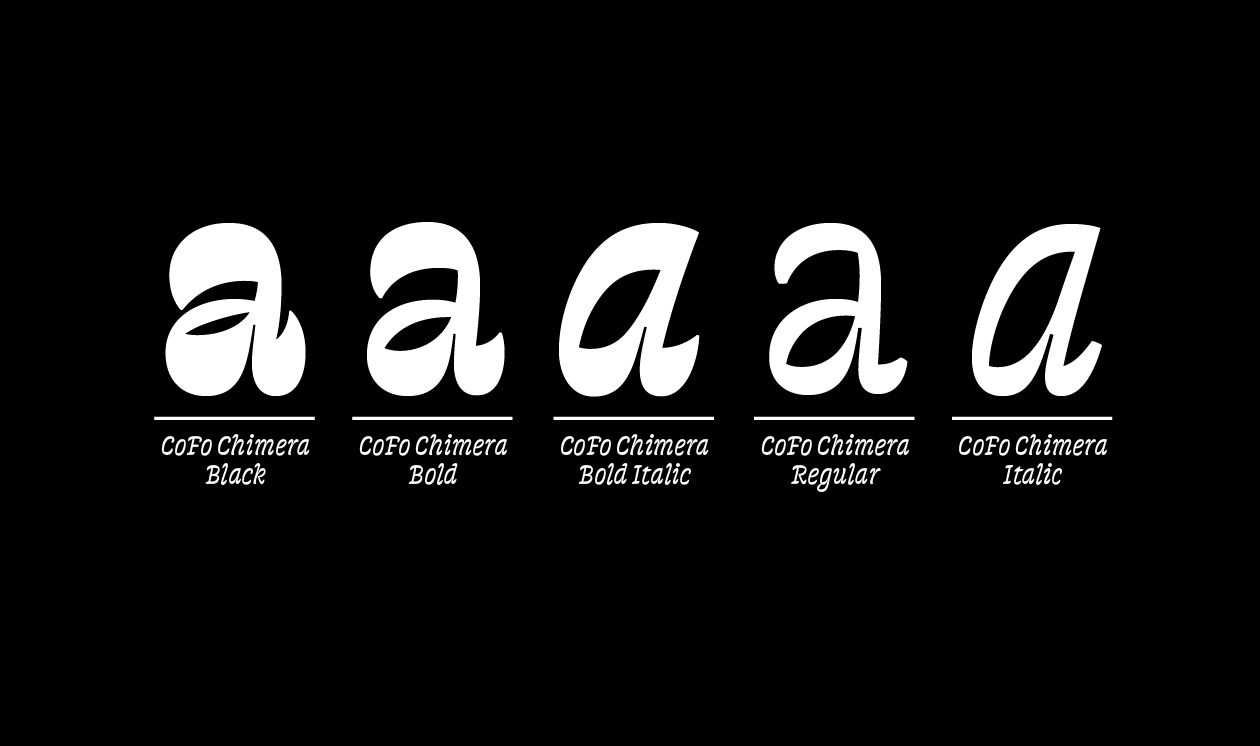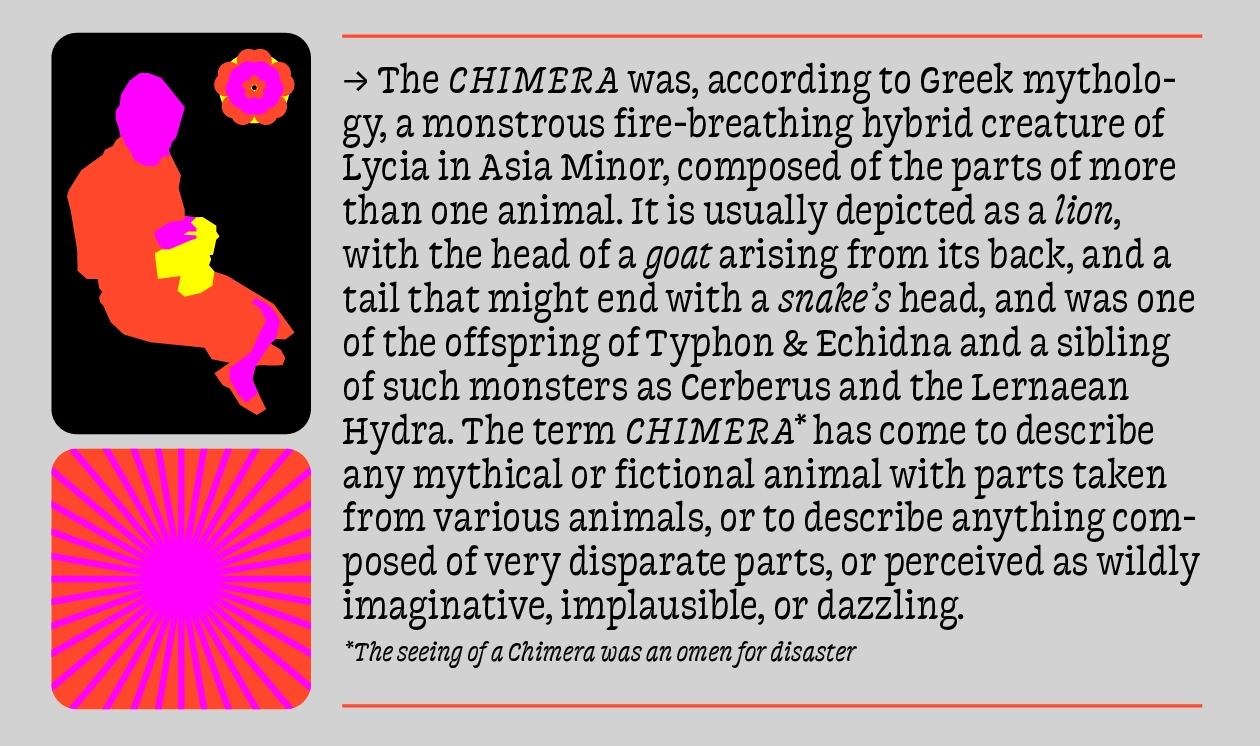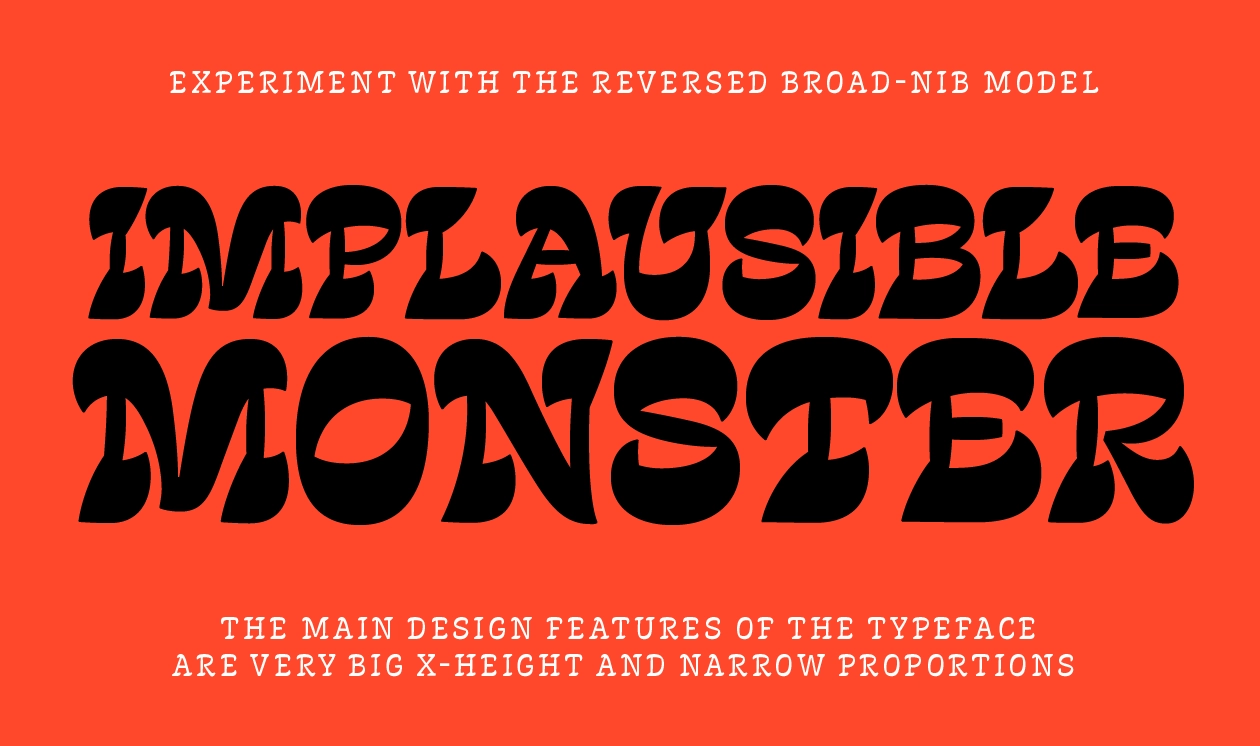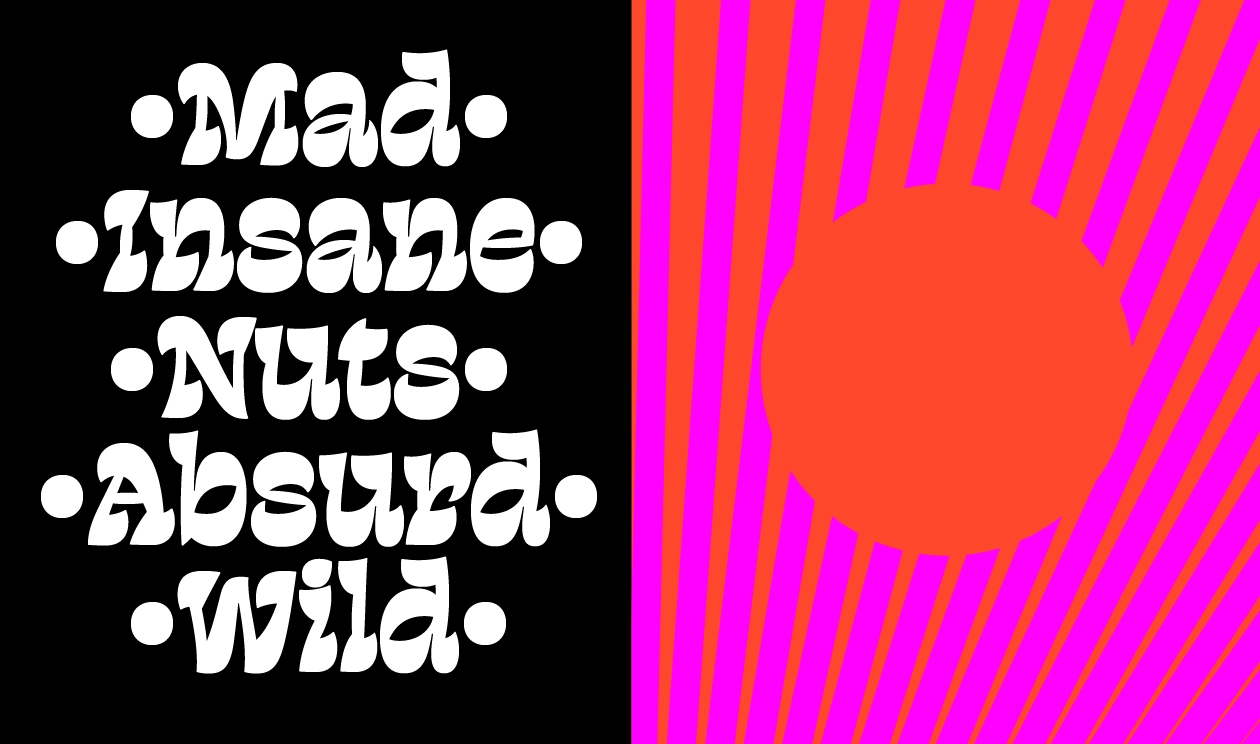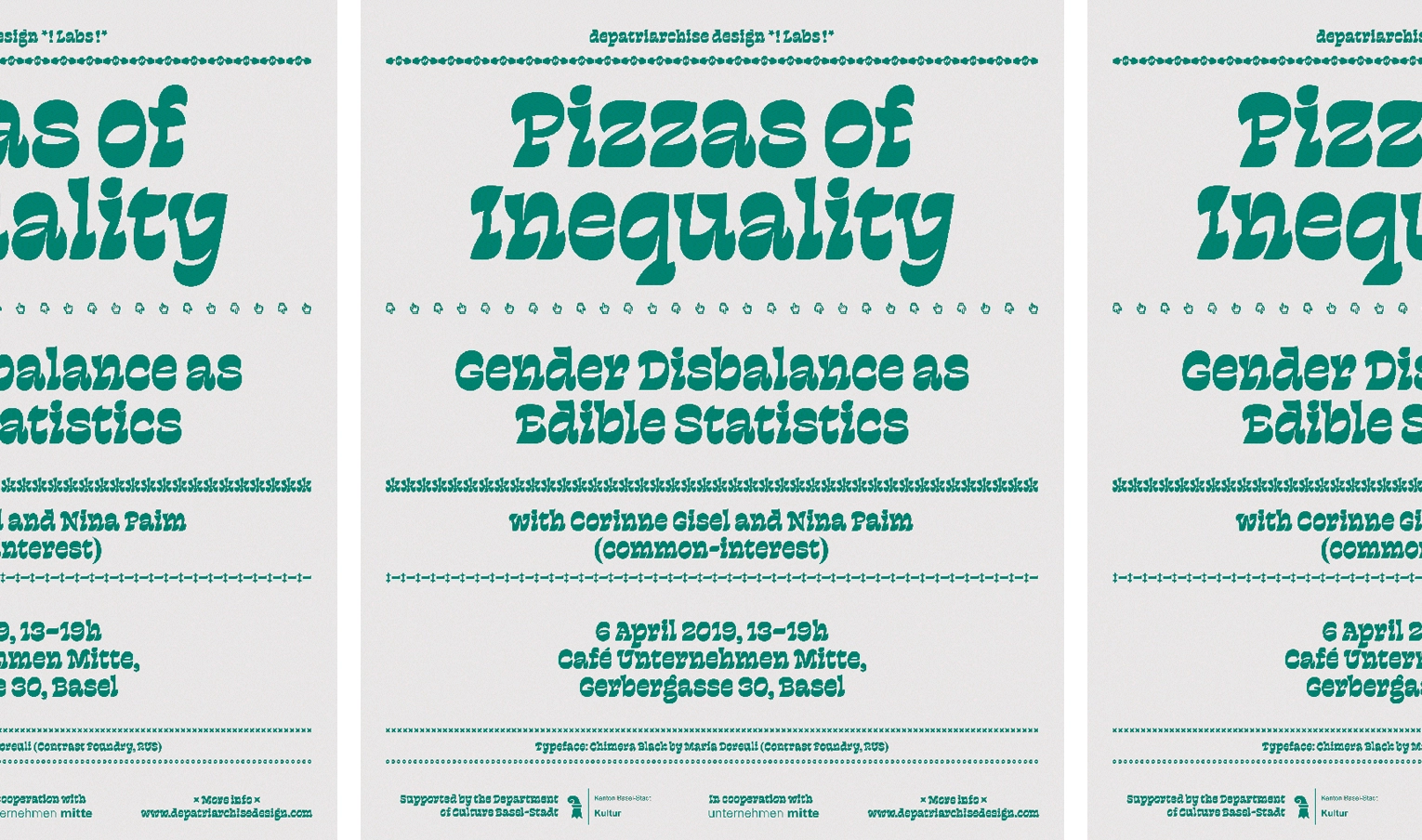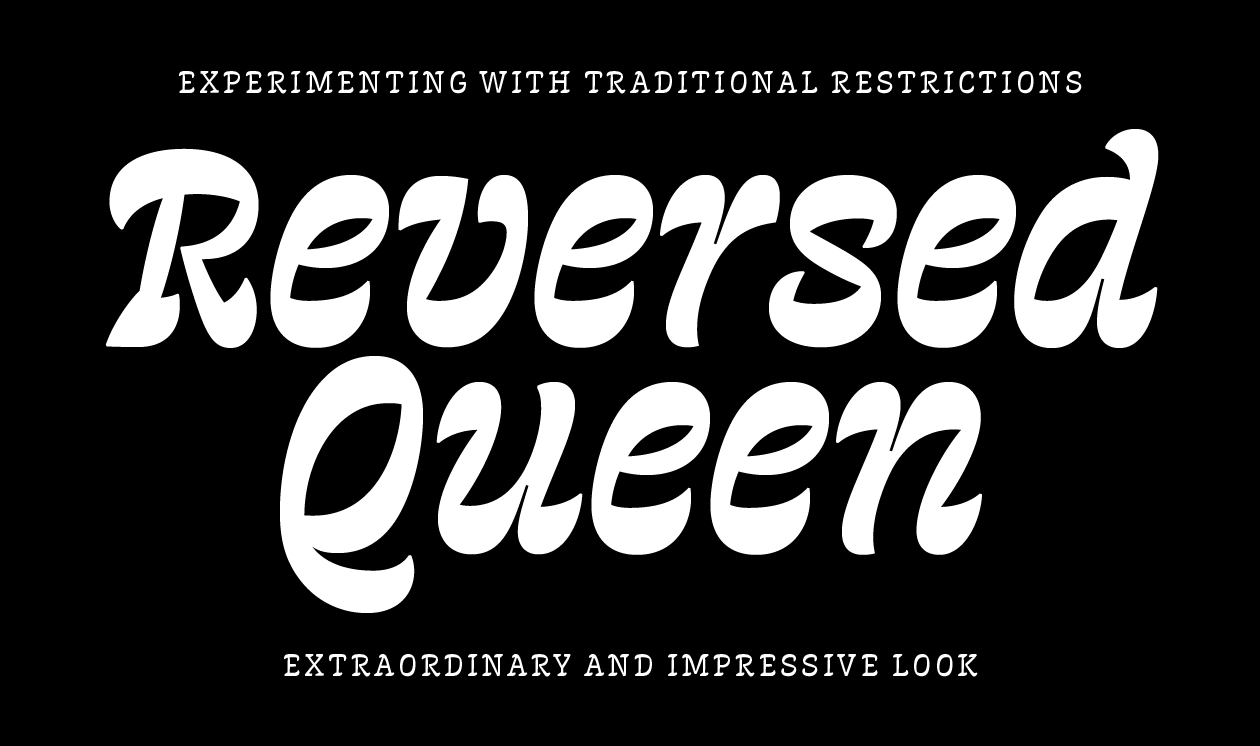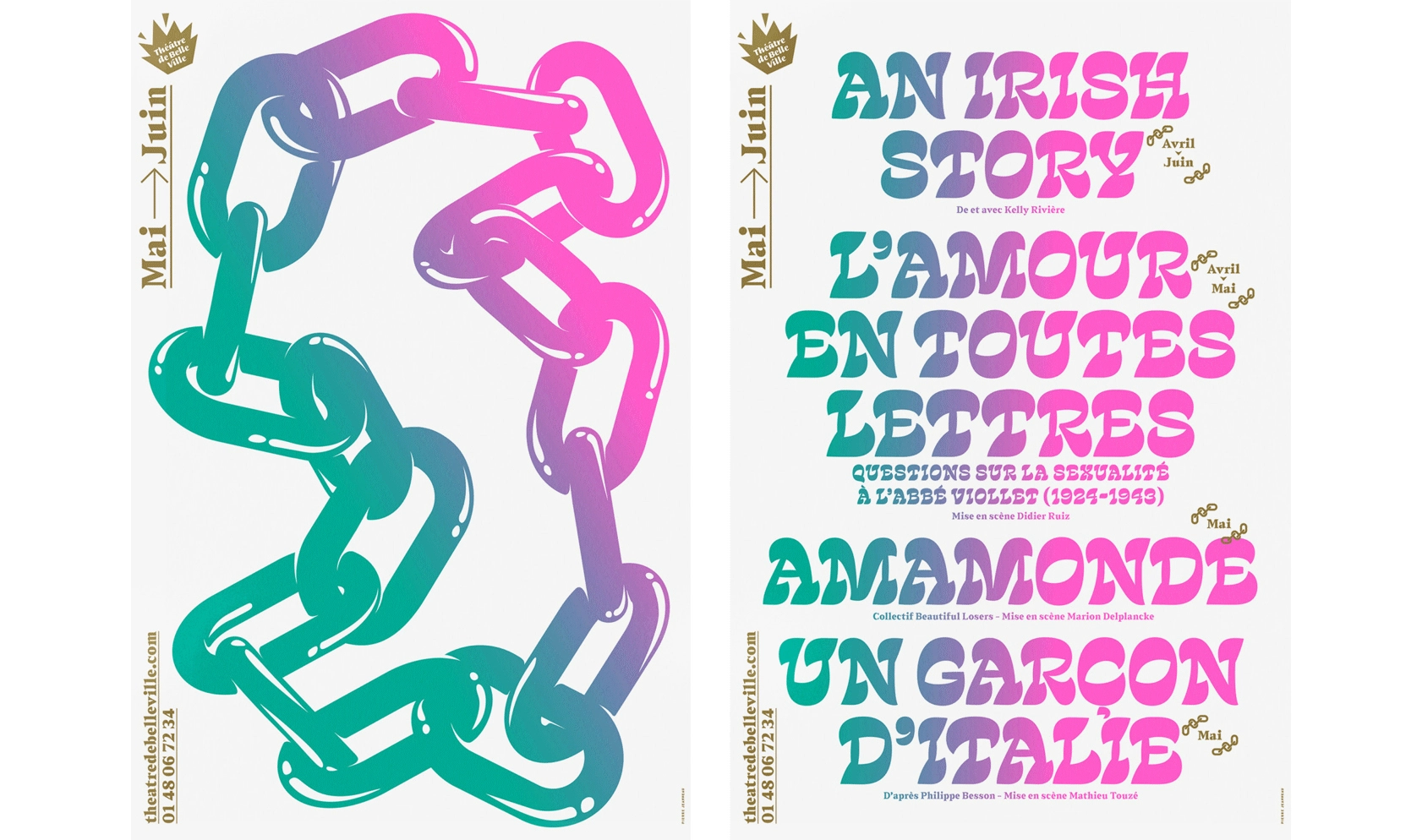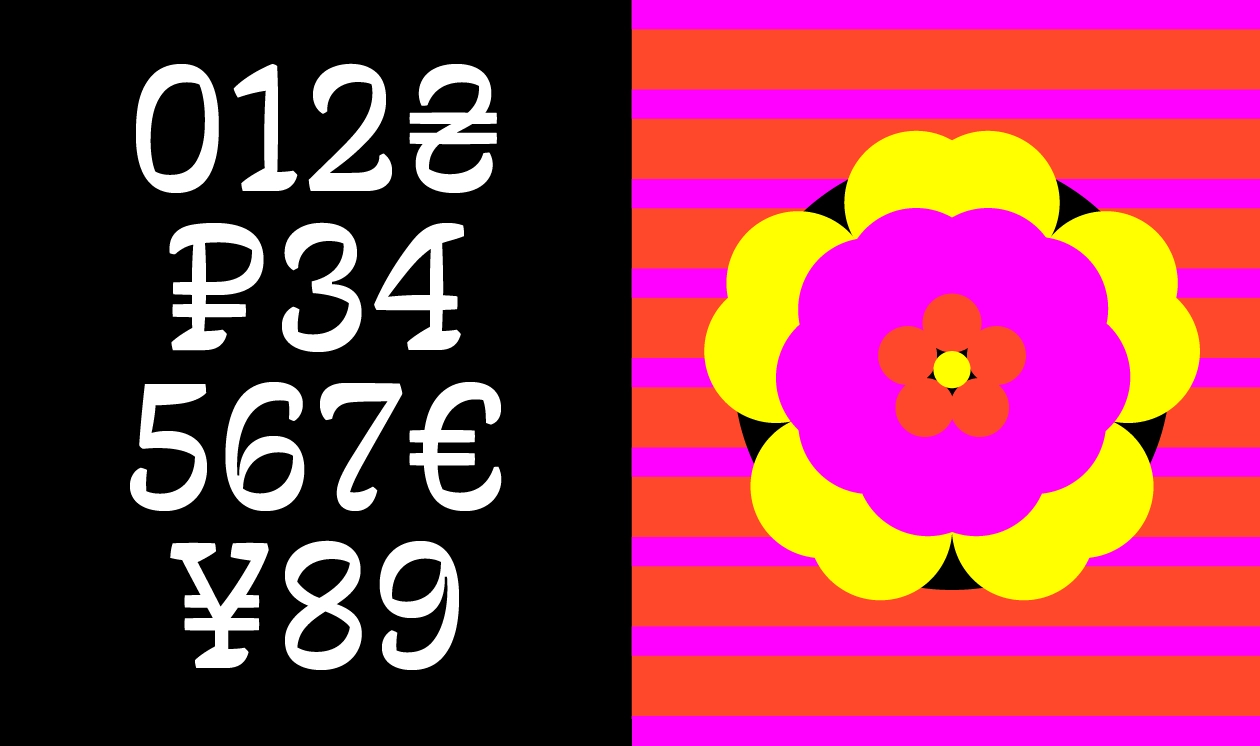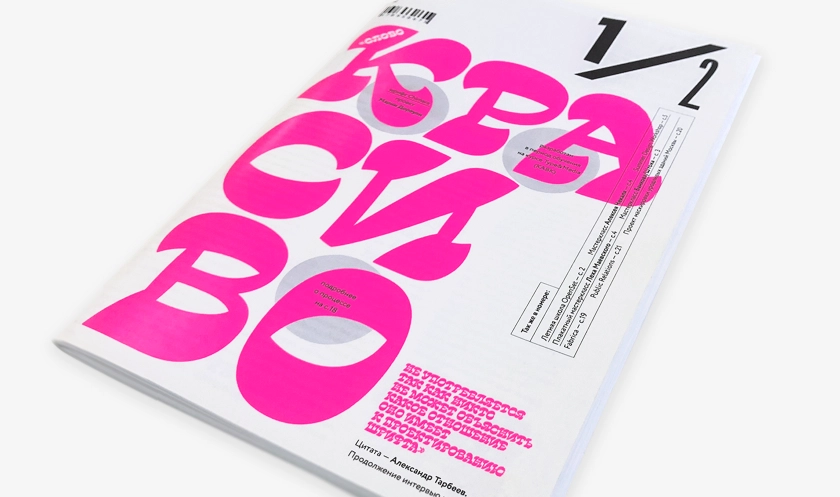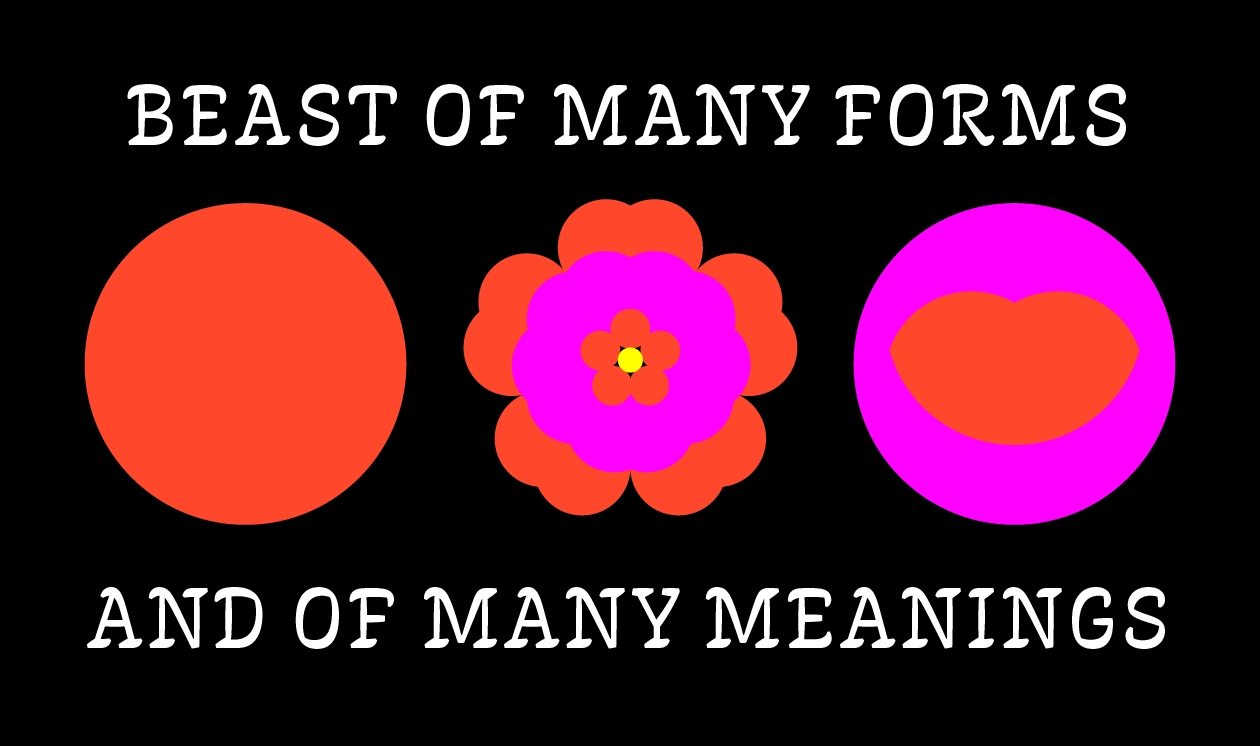
CoFo Chimera Variable
CoFo Chimera
About CoFo Chimera
CoFo Chimera is the most beautiful monster you’ve ever seen. It is an experiment in bringing dynamism and beauty into the traditional reversed contrast typefaces, which remind us of Western movies. Historically these typefaces were intentionally created to be ugly, their letterforms were designed as the opposite of the elegant classics, their weirdness was deliberately challenging expectations and grabbing attention. Defying the rules once more, CoFo Chimera twists this quirky concept into an elegant and versatile type family. Influenced by calligraphy with a broad-nib tool held at a steep 45° angle, the quirkiness is suddenly transformed into friendliness. Intended especially for display use, the typeface includes 3 high-contrast statement styles and 2 low-contrast companions. The low-contrast styles retain the same daring character, but are adjusted to perform well in smaller sizes. All the styles in the family are based on the same concept and share certain common characteristics, nevertheless each one of them is drawn completely from scratch and brings its uniqueness to the mix.